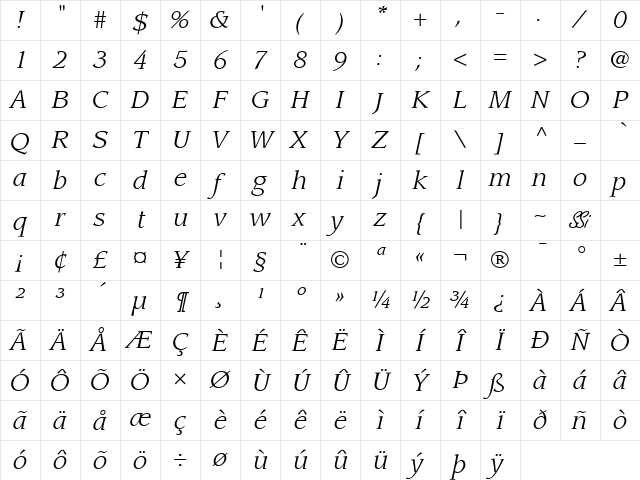
Advisor SSi Italic
Design Context for Advisor SSi
Advisor SSi is a composed and adaptable typeface that performs quietly and consistently across a wide range of design contexts. The slanted form adds forward momentum and visual energy.
Pro Tip: Use Advisor SSi for emphasis, pull quotes, and subheadings where its slanted energy can add rhythm to the layout.